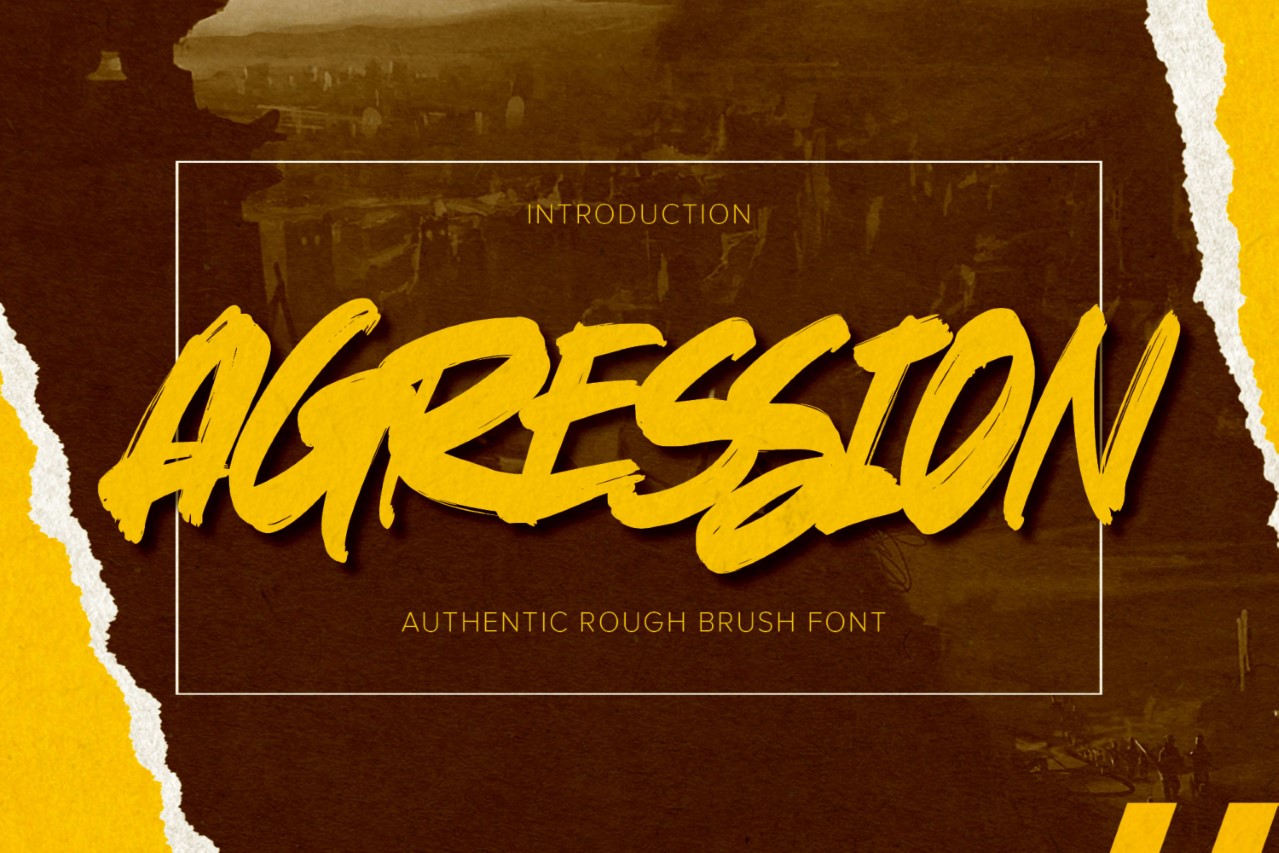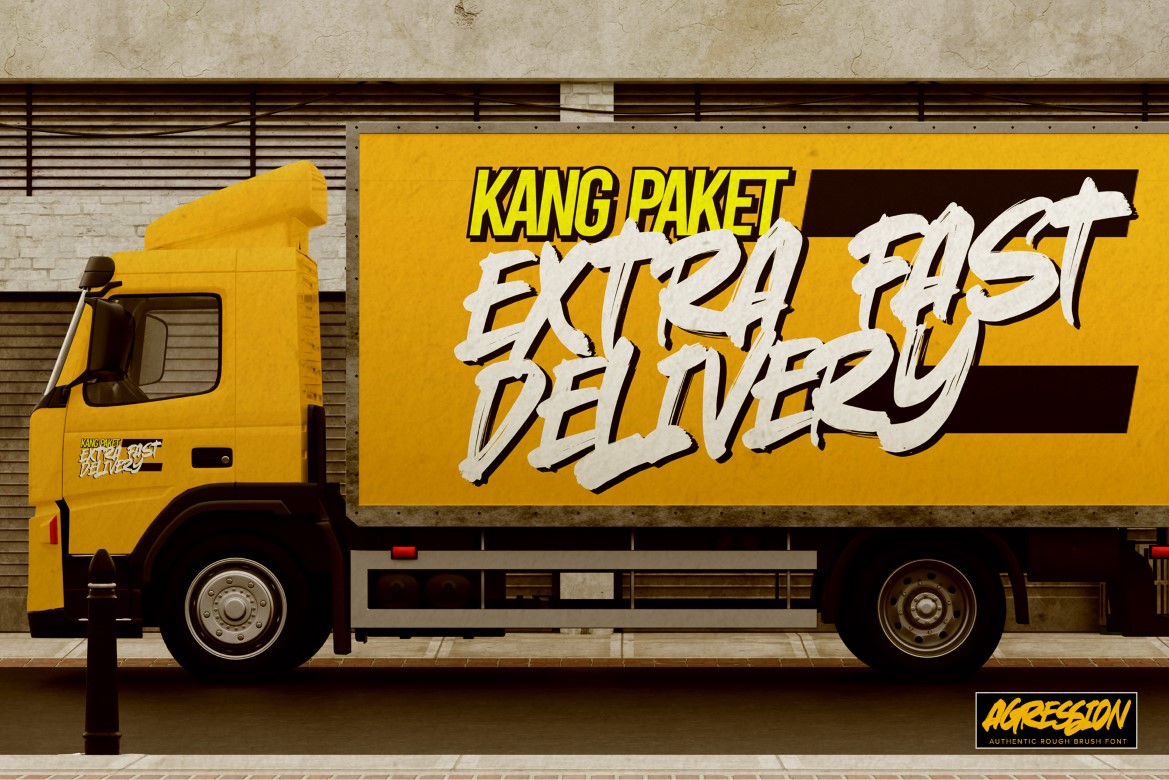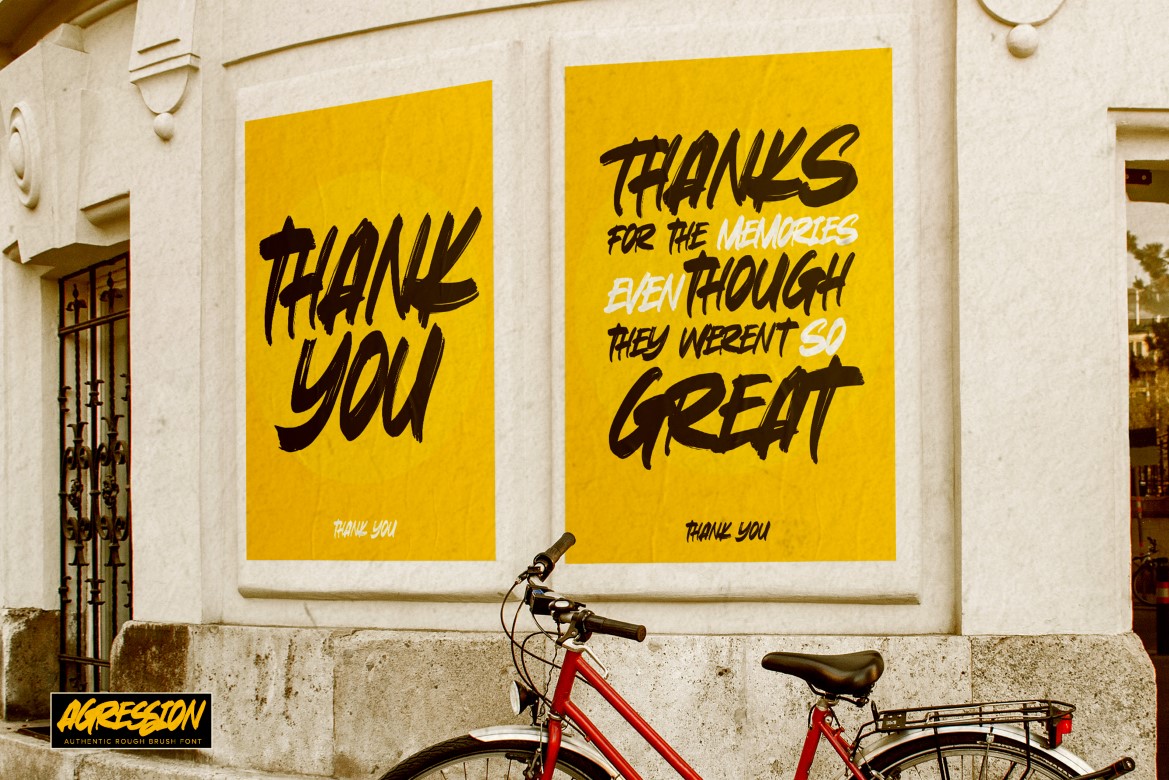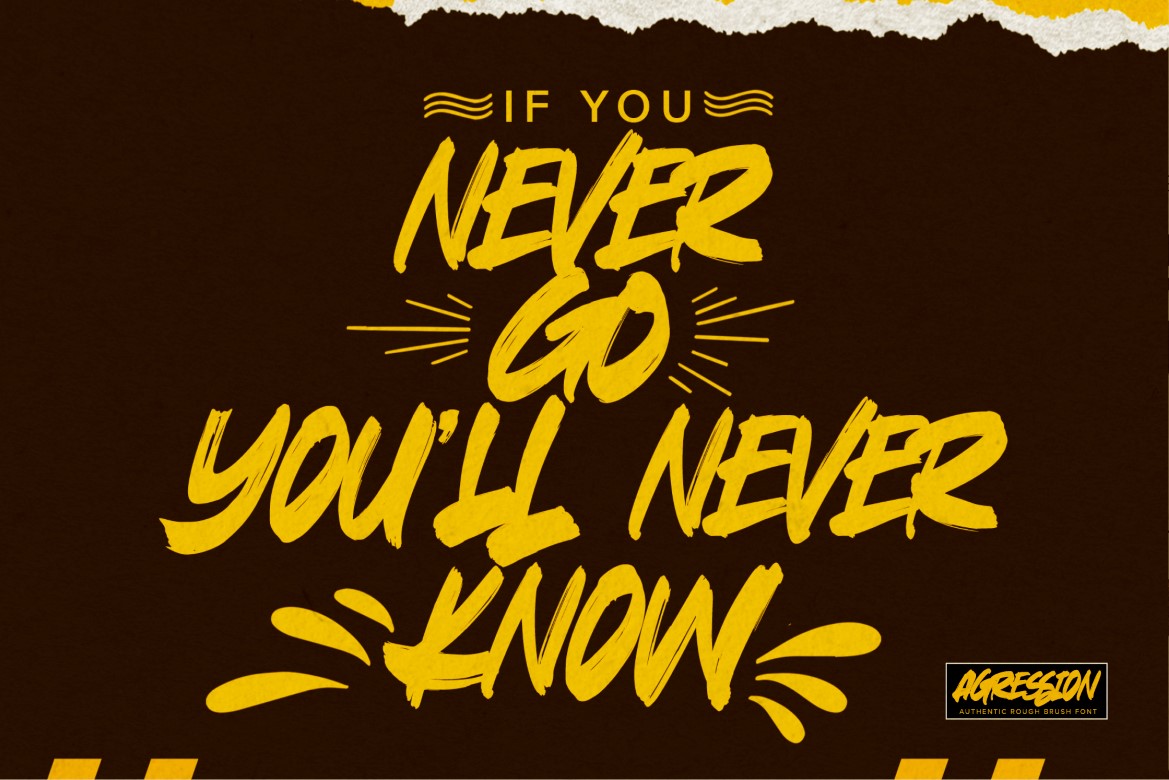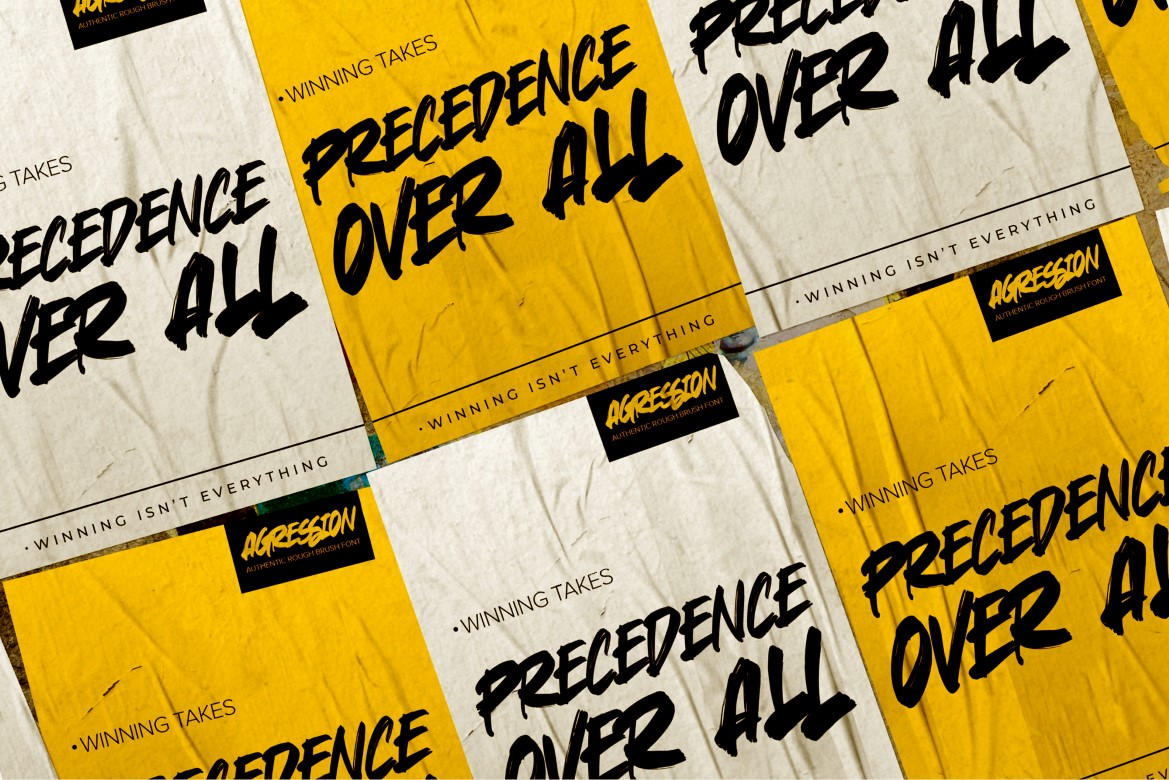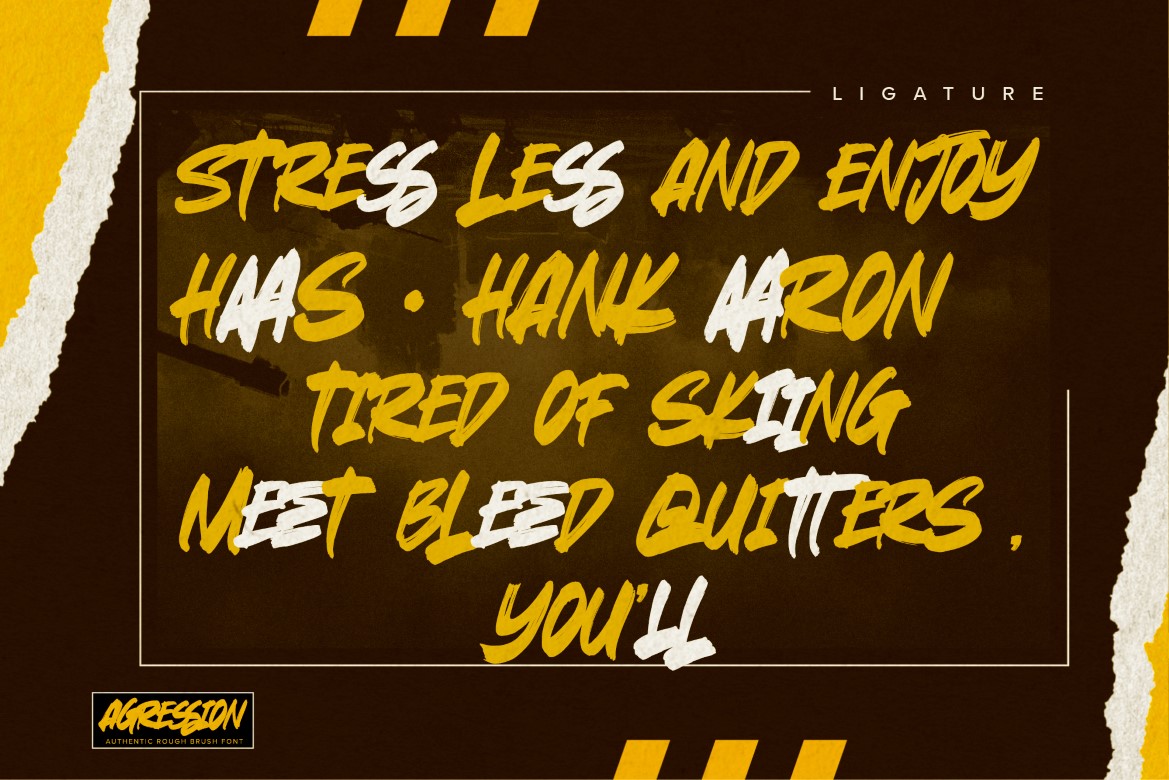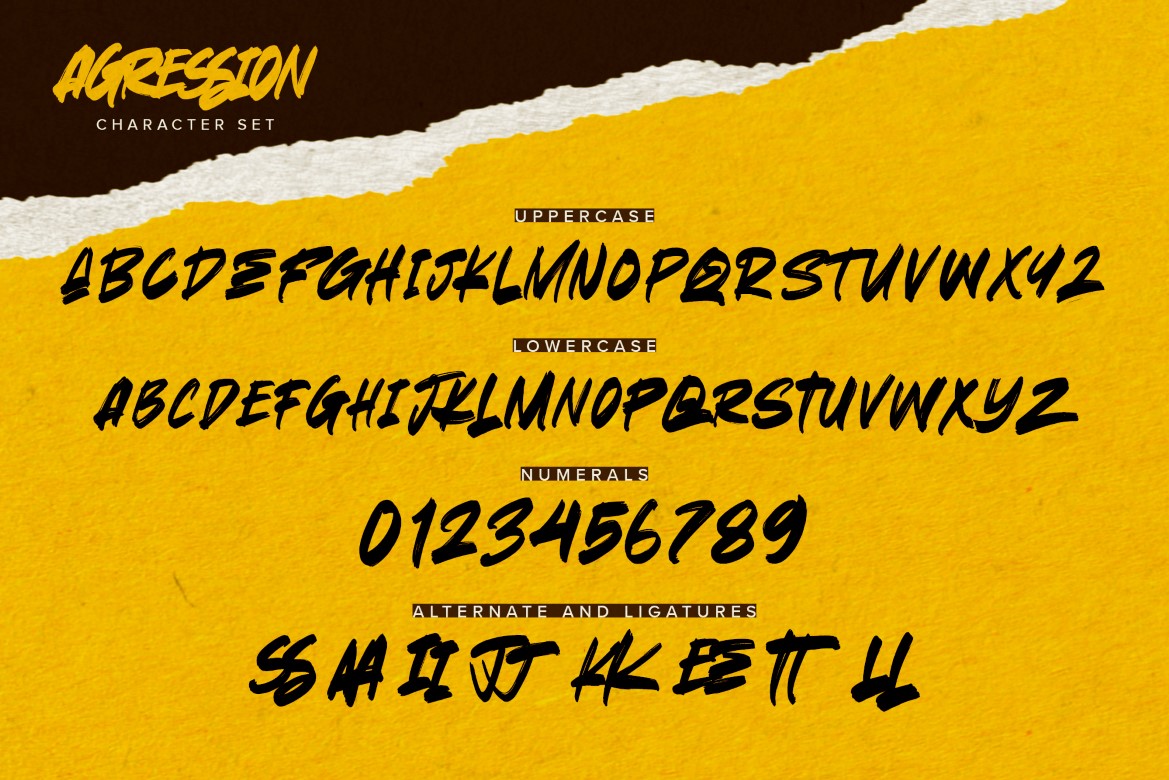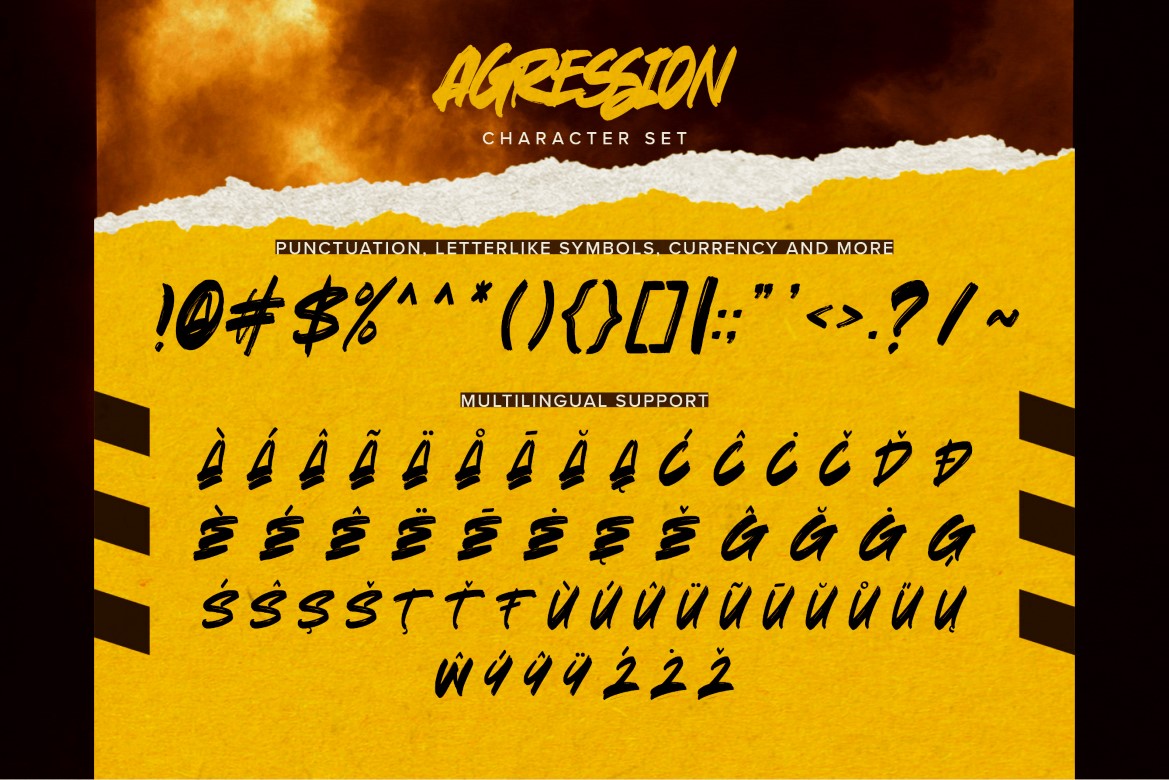
Agression – Authentic Rough Brush Font is an Modern brush Font that is written casually and quickly.
That is why Agression has a authentic, and strong characteristic more natural look.
Agression Perfect for designs, branding projects, Logo design,Quotes product packaging and another Project that require cool strong brush font.